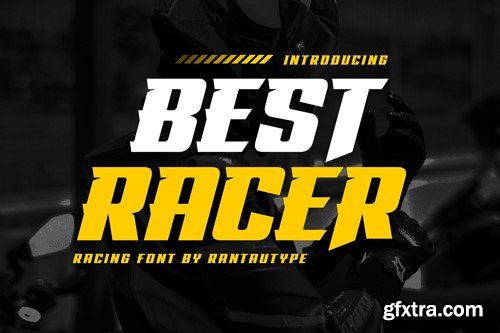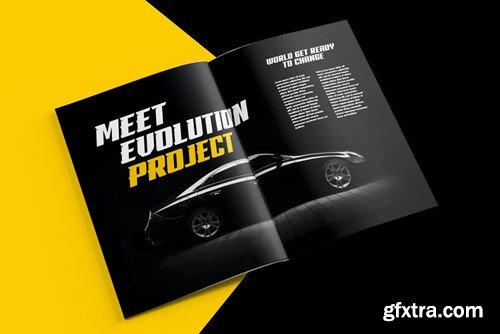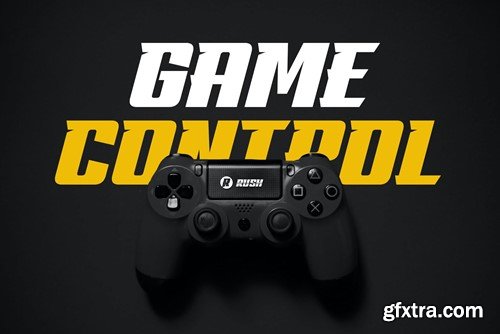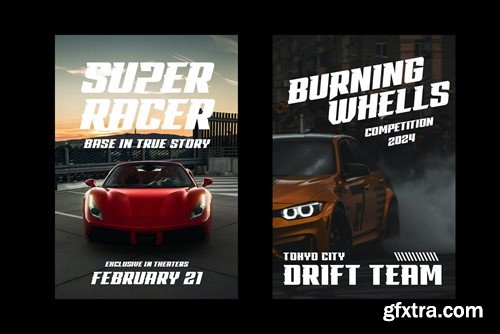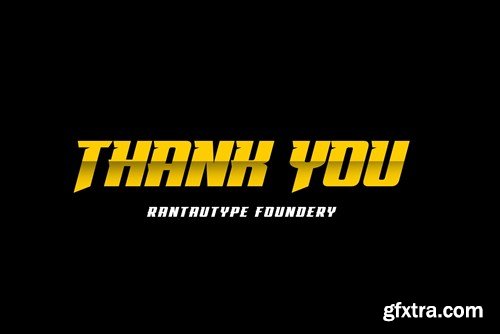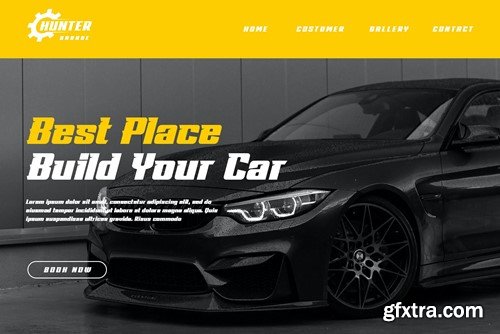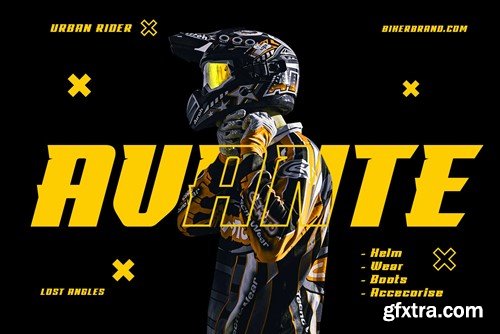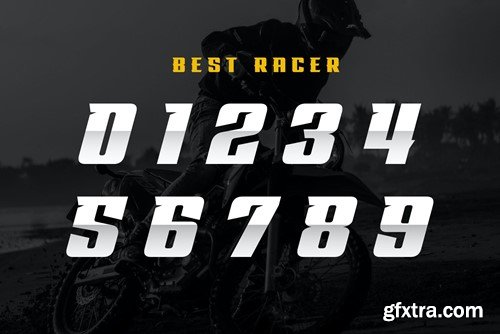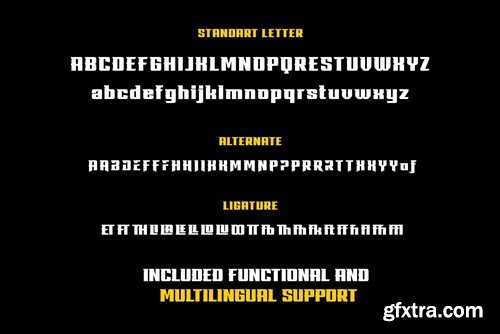
最佳赛车手竞技字体TWEE5GQ
Hi Ladies and Gentleman ! Proudly present best racer font, by rantautype. Experience racing in a visual form for your design with the best racer font. Inspired by the fast car brand and futuristic digital concept, targeting the fast forward mentality with a bold shape to make the statement louder and faster than ever. Best racer come with alternate, ligature and mulilingual support. Perfectly suitable for any creative endeavor, sports brand, logo, esports, games, posters, film/movice, car brands, automotive events, advertising, motorcycles, digital futuristic concept and more. Now you using best racer to elevate you design or branding. Features: File include: Langguange support: Afrikaans, Albanian, Asu, Basque, Bemba, Bena, Breton, Catalan, Chiga, Cornish, Danish, Dutch, English, Estonian, Faroese, Filipino, Finnish, French, Friulian, Galician, German, Gusii, Icelandic, Indonesian, Irish, Italian, Kabuverdianu, Kalenjin, Kinyarwanda, Luo, Luxembourgish, Luyia, Machame, Makhuwa-, Meetto, Makonde, Malagasy, Manx, Morisyen, Northv Ndebele, Norwegian, Bokmål, Norwegian, , Nynorsk, Nyankole, Oromo, Portuguese, Quechua, Romansh, Rombo, Rundi, Rwa, Samburu, Sango, Sangu, Scottish, Gaelic, Sena, Shambala, Shona, Soga, Somali, Spanish, Swahili, Swedish, Swiss, German, Taita, Teso, Uzbek (Latin), Volapük, Vunjo, Zulu Thank you for visit our store and Hope you enjoy our font!!